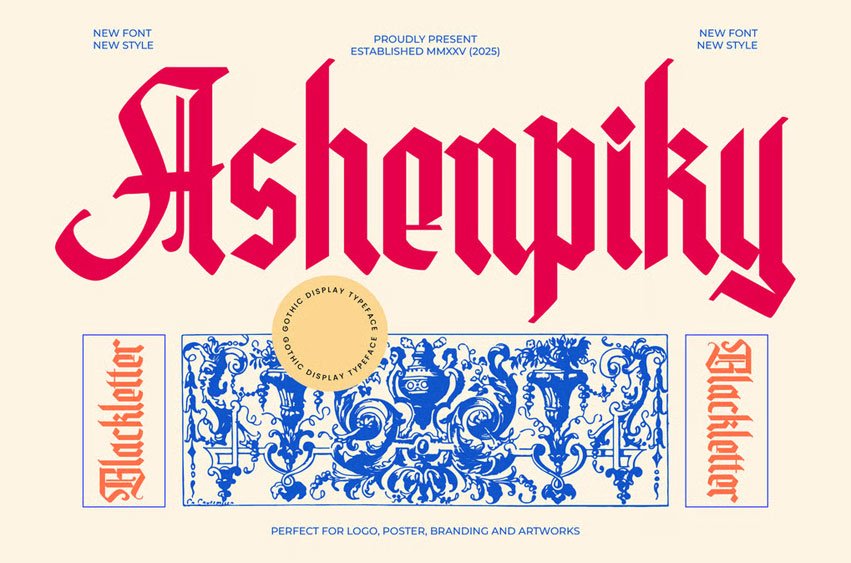
Ashenpiky Blackletter Font serif font is a unique, modern geometric font with a unique, elegant, and modern style.
It is a serif font perfect for branding projects, logos, social media posts, product packaging, labels, etc.